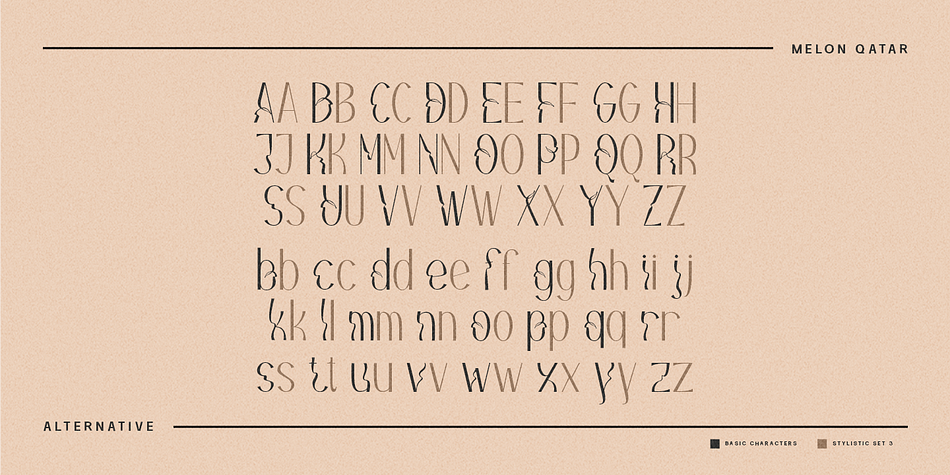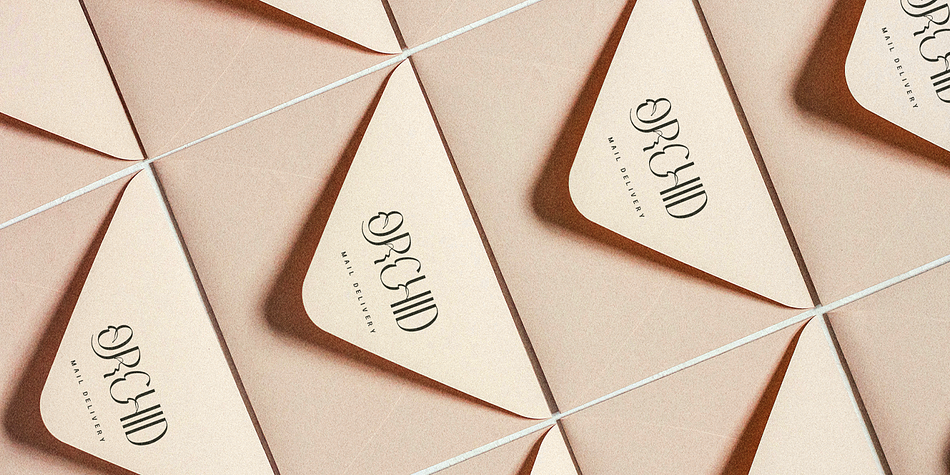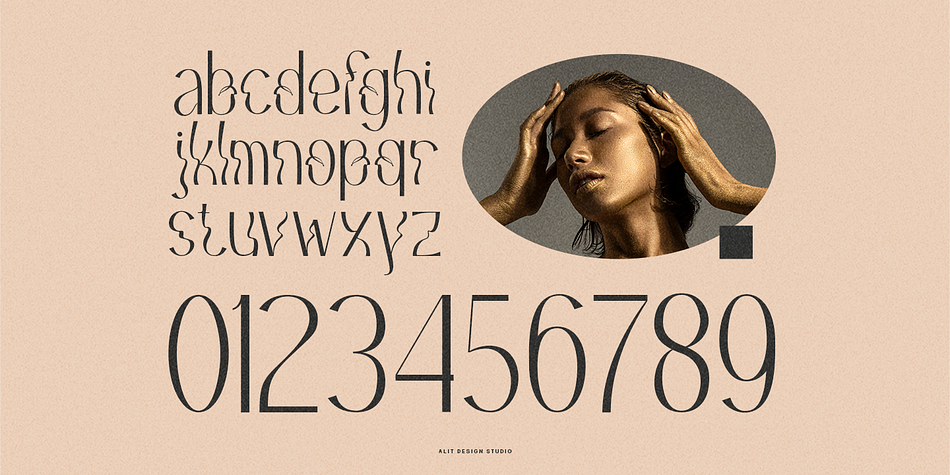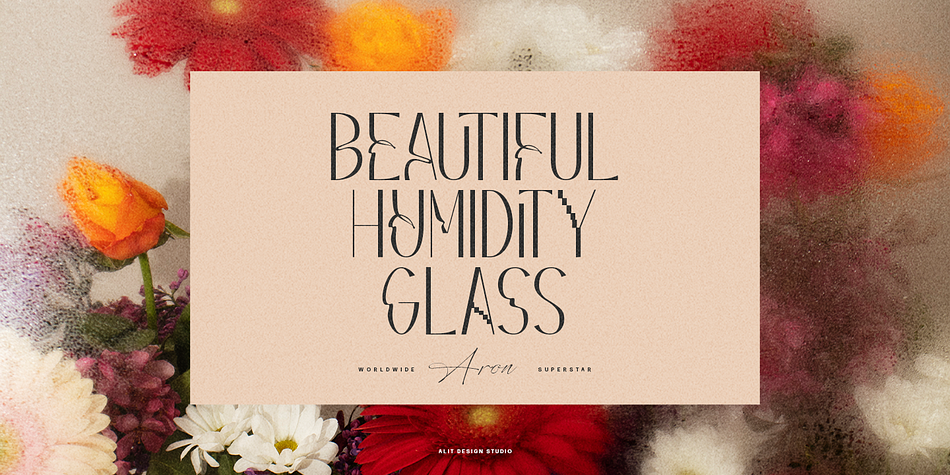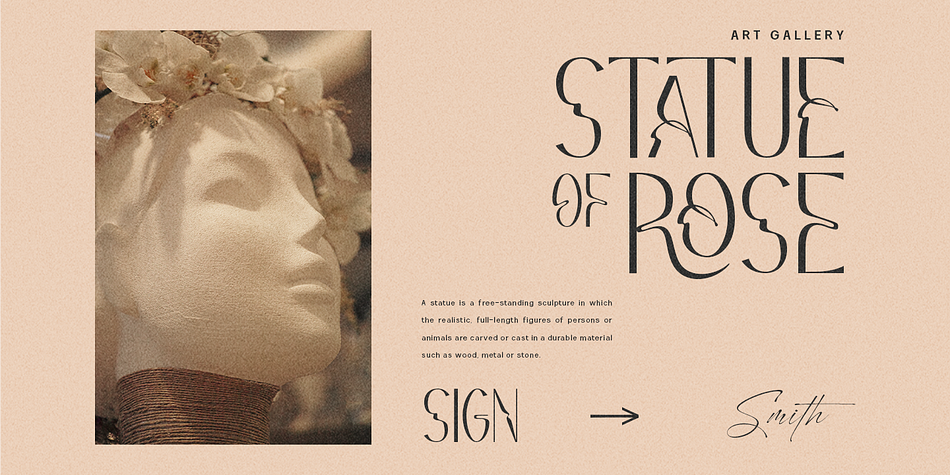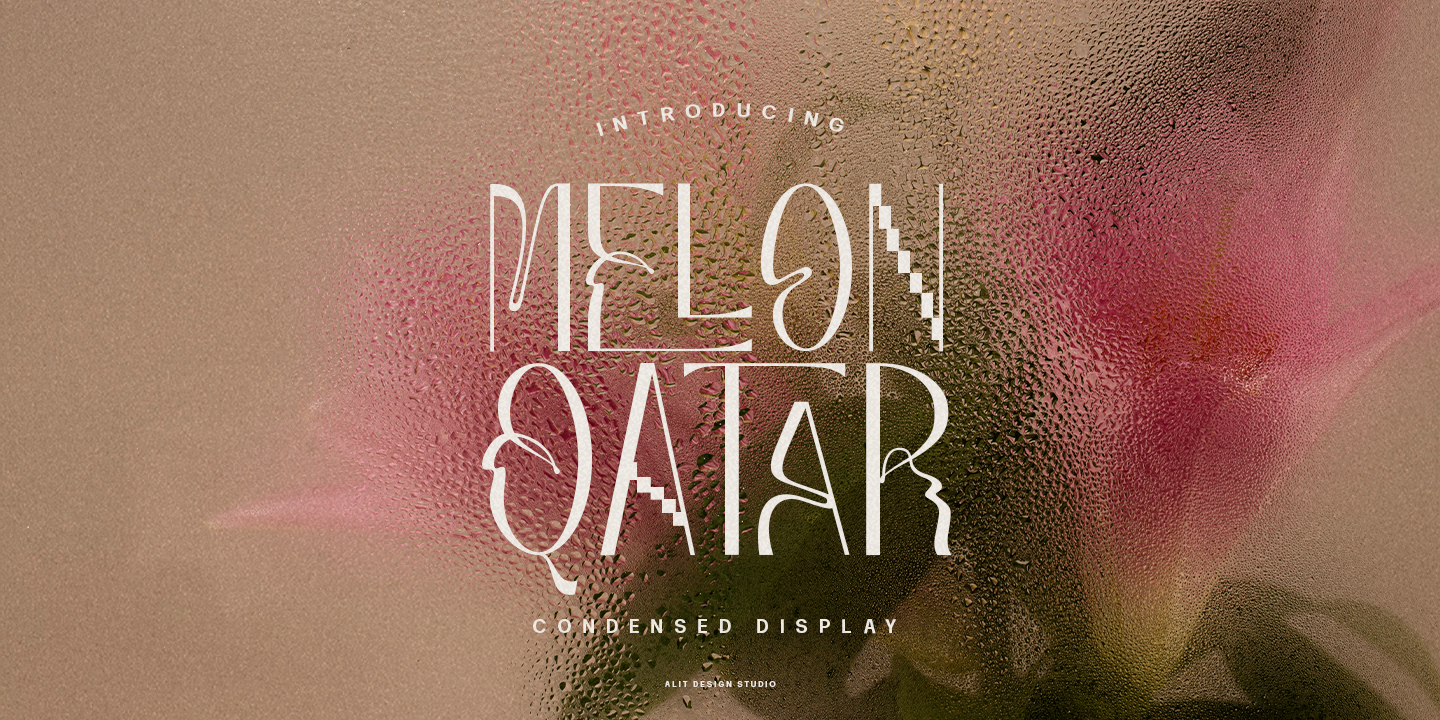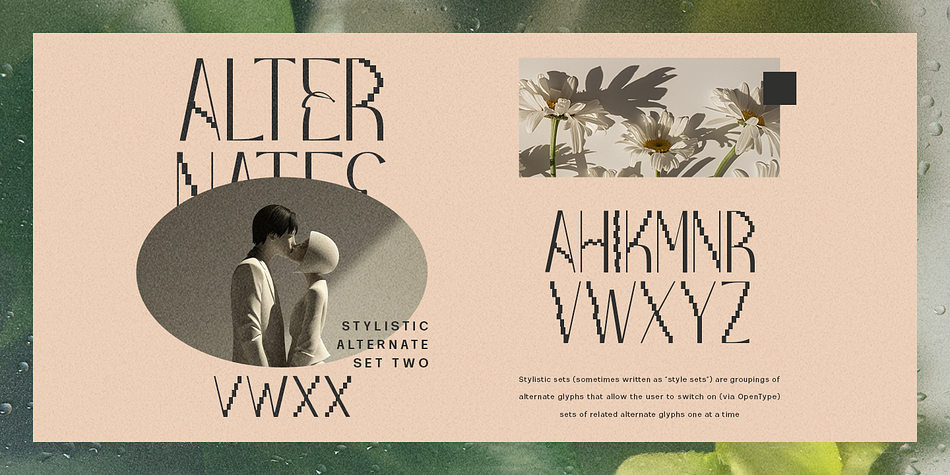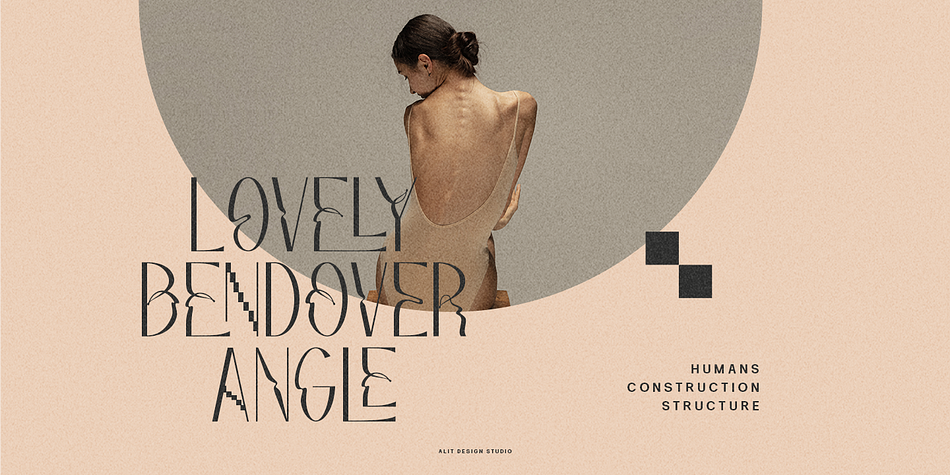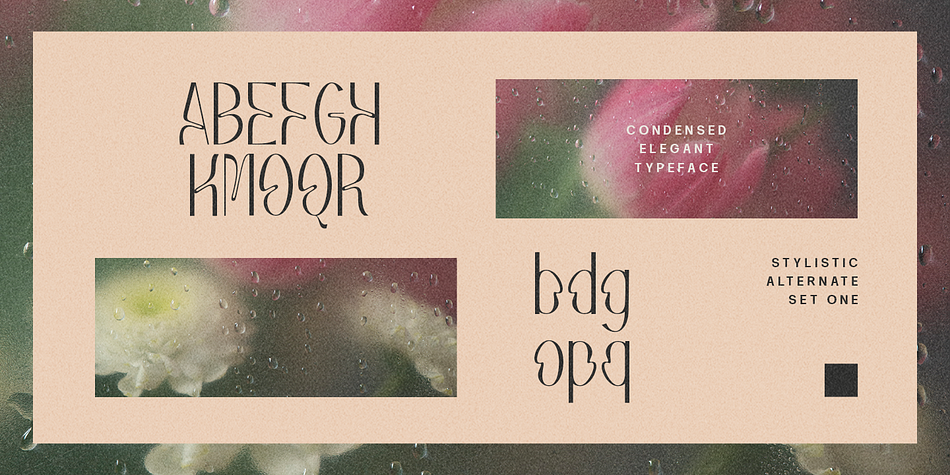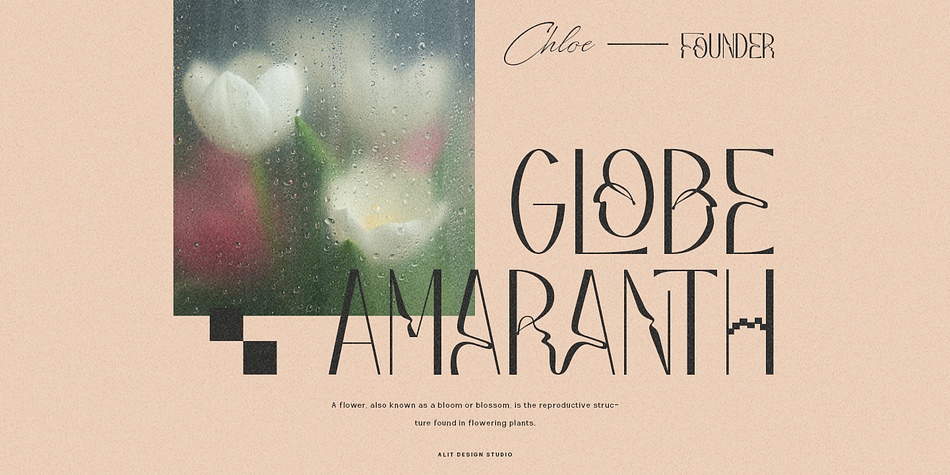
Melon Qatar
Designed by Alit Suarnegara, Melon Qatar is an art nouveau font family published by Alit Design.
Melon Qatar is a distinctive and contemporary sans serif typeface that combines elegance and versatility. This tall font stands out with its sleek and elongated letterforms, making it perfect for modern and sophisticated designs.
Tall and Unique Design:
The font features a tall structure, giving it a commanding presence and a modern aesthetic. Each character is designed with a unique flair that sets it apart from traditional sans serif fonts. Swaying Waves Alternatives:
Melon Qatar includes alternative characters with subtle, swaying wave-like designs. These alternatives add a dynamic and fluid feel to the text, introducing a sense of movement and rhythm. Harmonious Steps:
The font’s design incorporates harmonious steps, ensuring a balanced and aesthetically pleasing appearance. This feature enhances readability while maintaining a unique and stylish look. Ligatures:
Melon Qatar includes a variety of ligatures, which are specially designed character combinations. These ligatures create seamless connections between letters, contributing to the font’s smooth and cohesive flow.
Usage:
Melon Qatar is ideal for a range of applications, from branding and logos to editorial design and advertising. Its tall, elegant structure and unique features make it particularly suitable for headlines, posters, and other display purposes where a strong visual impact is desired.
Overall, Melon Qatar offers a blend of modernity and uniqueness, providing designers with a versatile tool to create visually stunning and engaging typographic compositions.